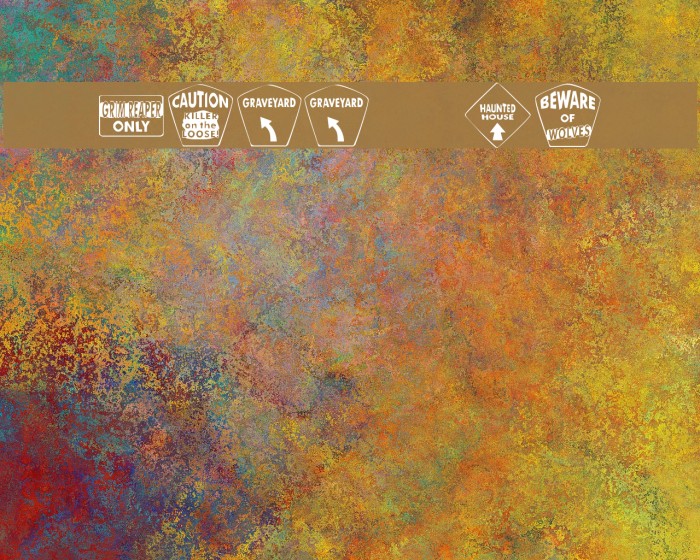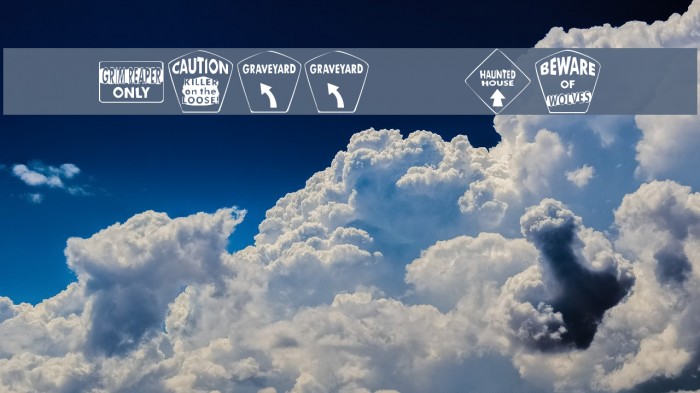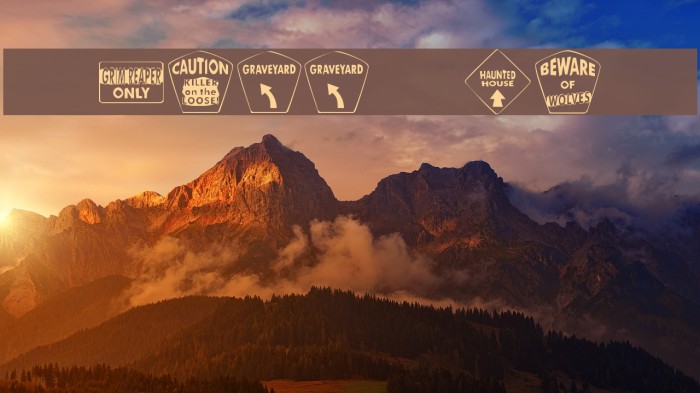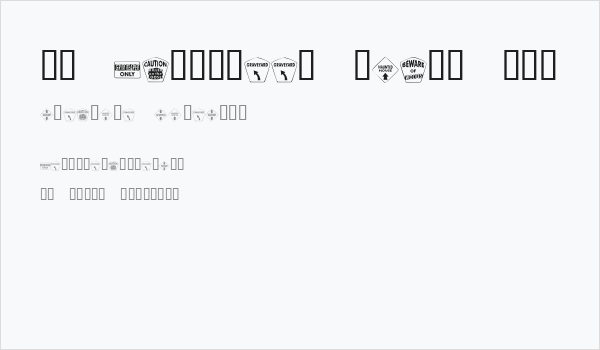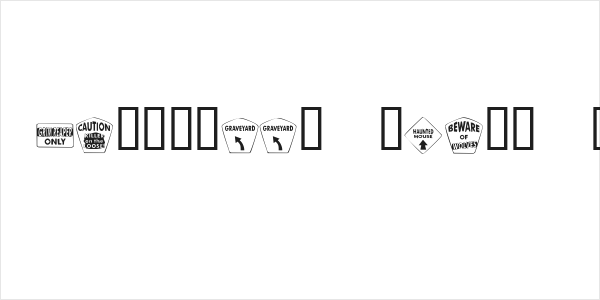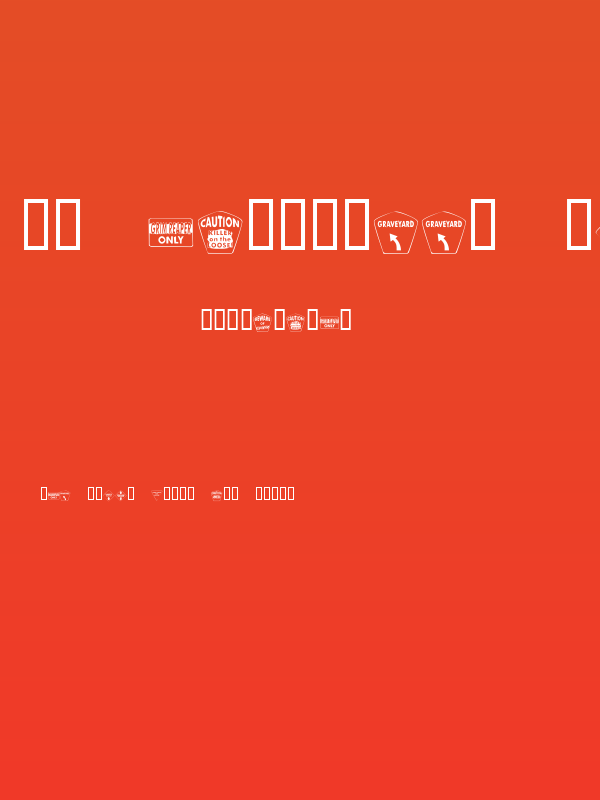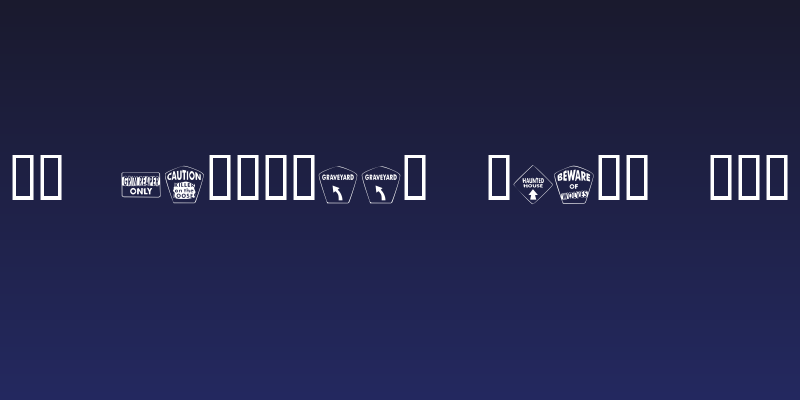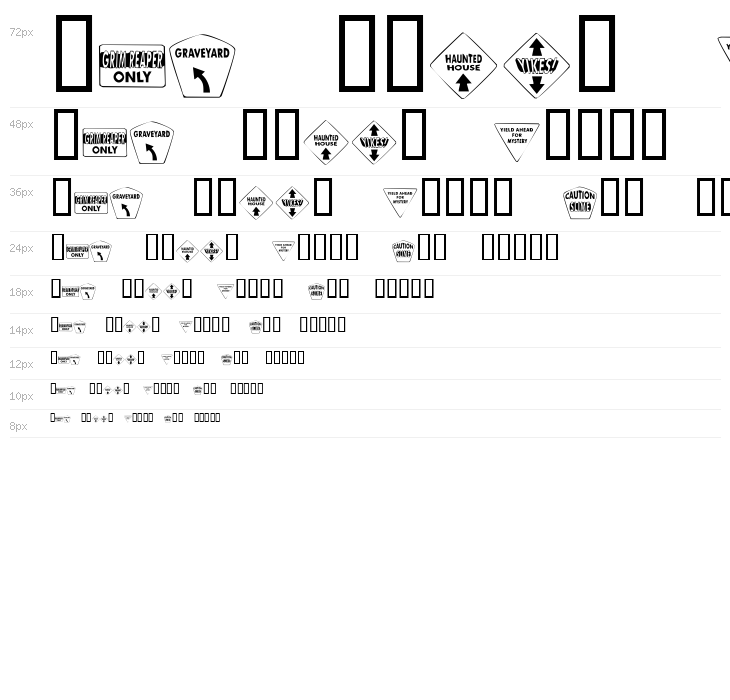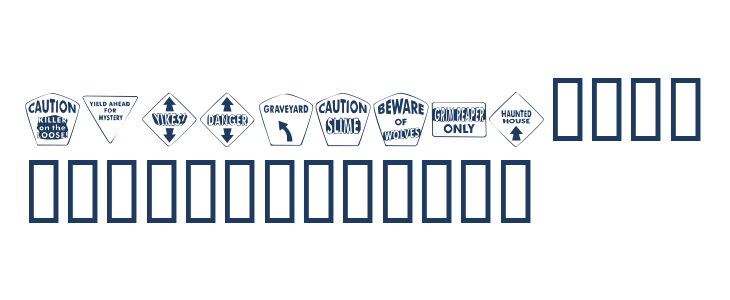
KR Halloween Signs Two Font
KR Halloween Signs Two Description
This font features a playful and spooky theme, perfect for Halloween designs. Each character is styled as a caution or warning sign, incorporating elements like arrows and bold text to convey a sense of danger or mystery. The design is highly decorative, with each letter enclosed in a shape reminiscent of road signs, such as diamonds and pentagons. The font is ideal for creating eye-catching headlines or themed graphics that require a touch of eerie charm. The bold and graphic nature of the characters makes them stand out, while the unique shapes add a layer of visual interest.
| Proposed Projects | Ideal for Halloween party invitations, themed posters, haunted house signage, or any project needing a spooky touch. |